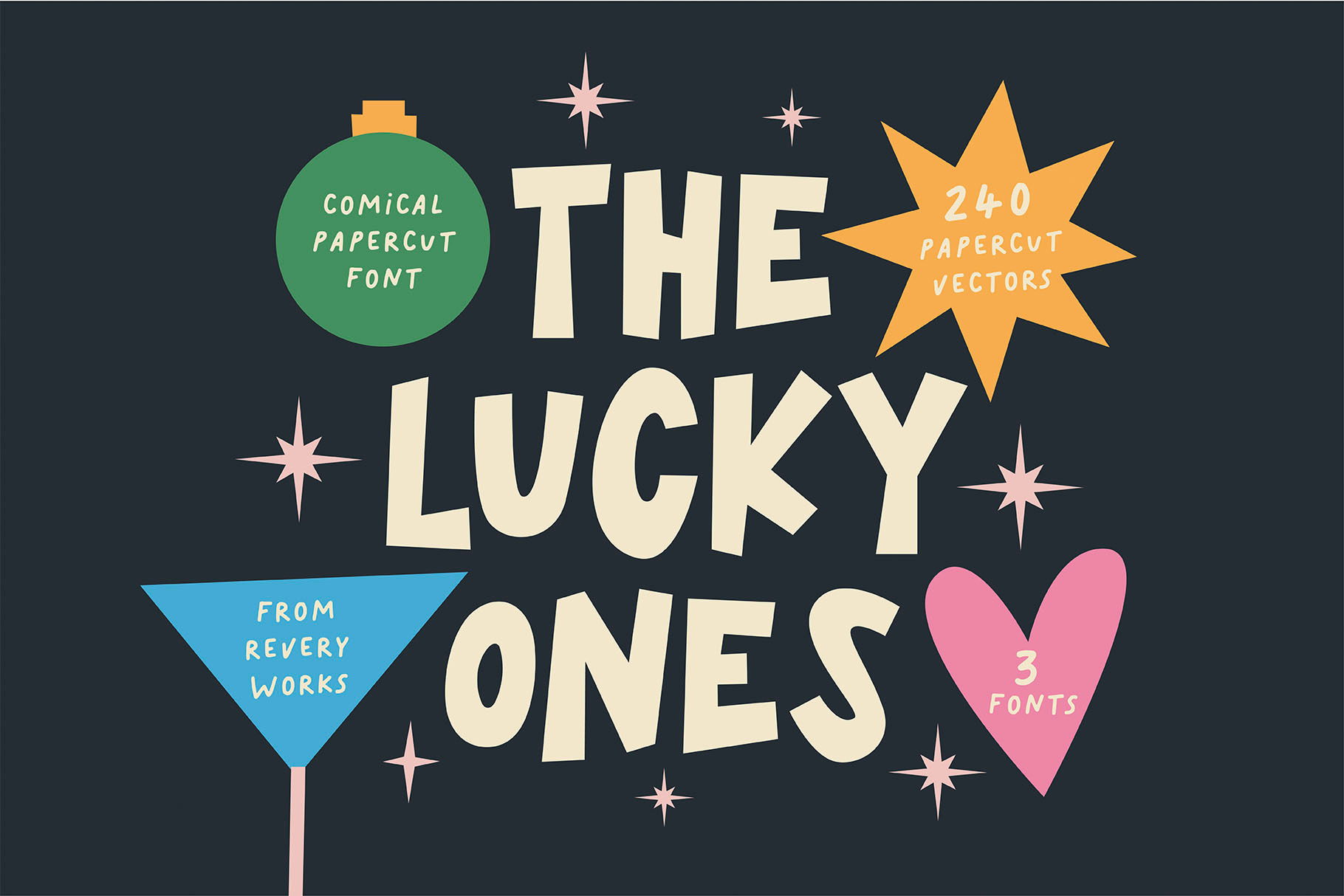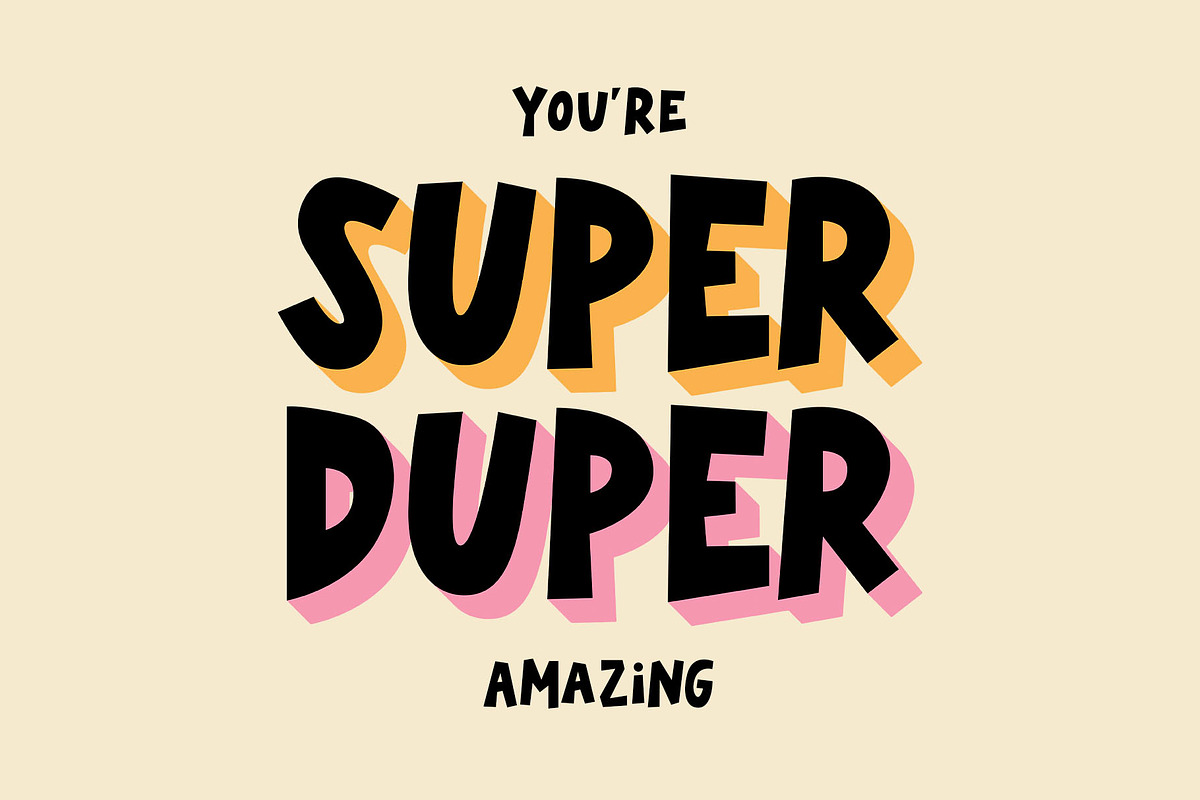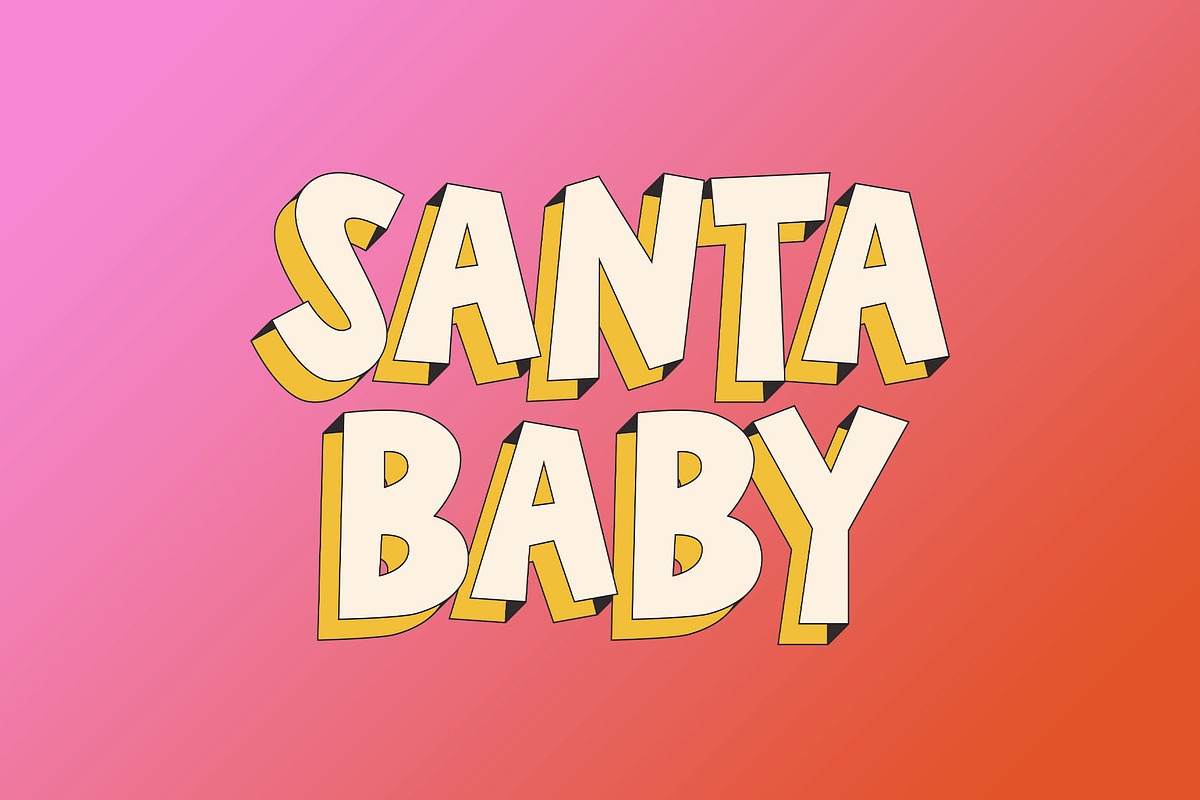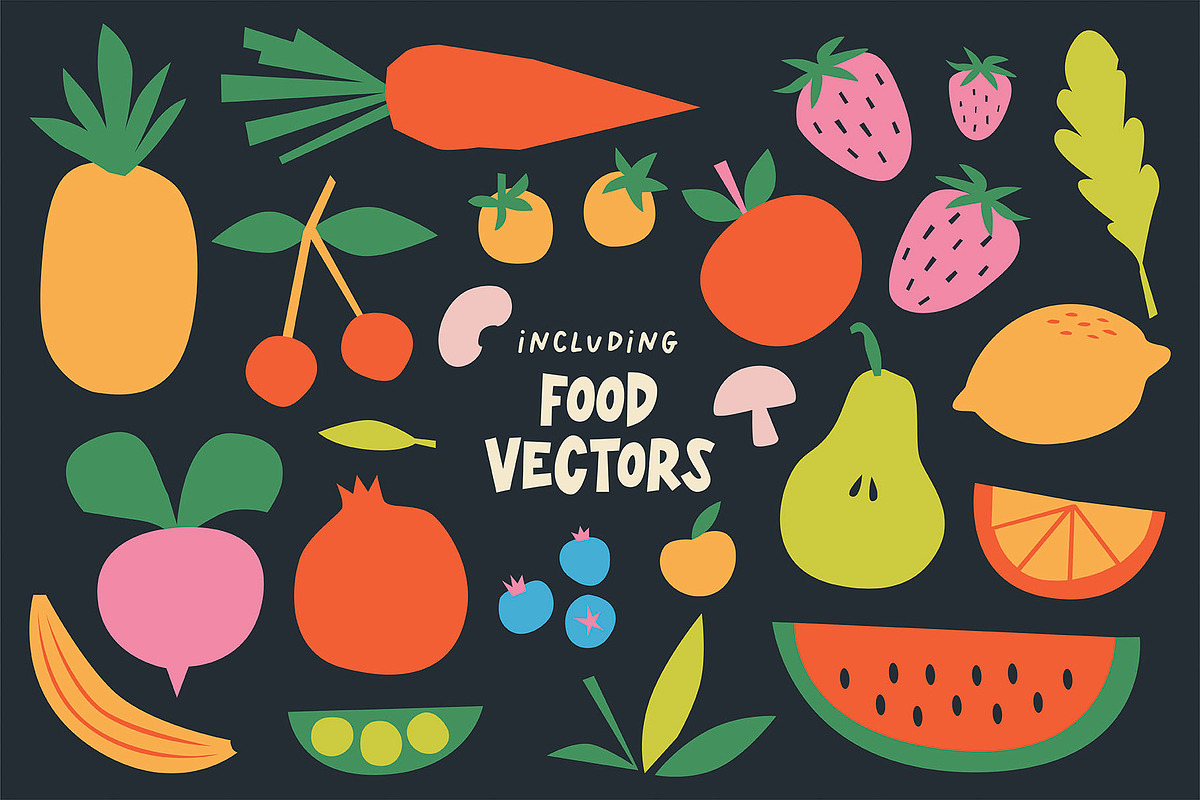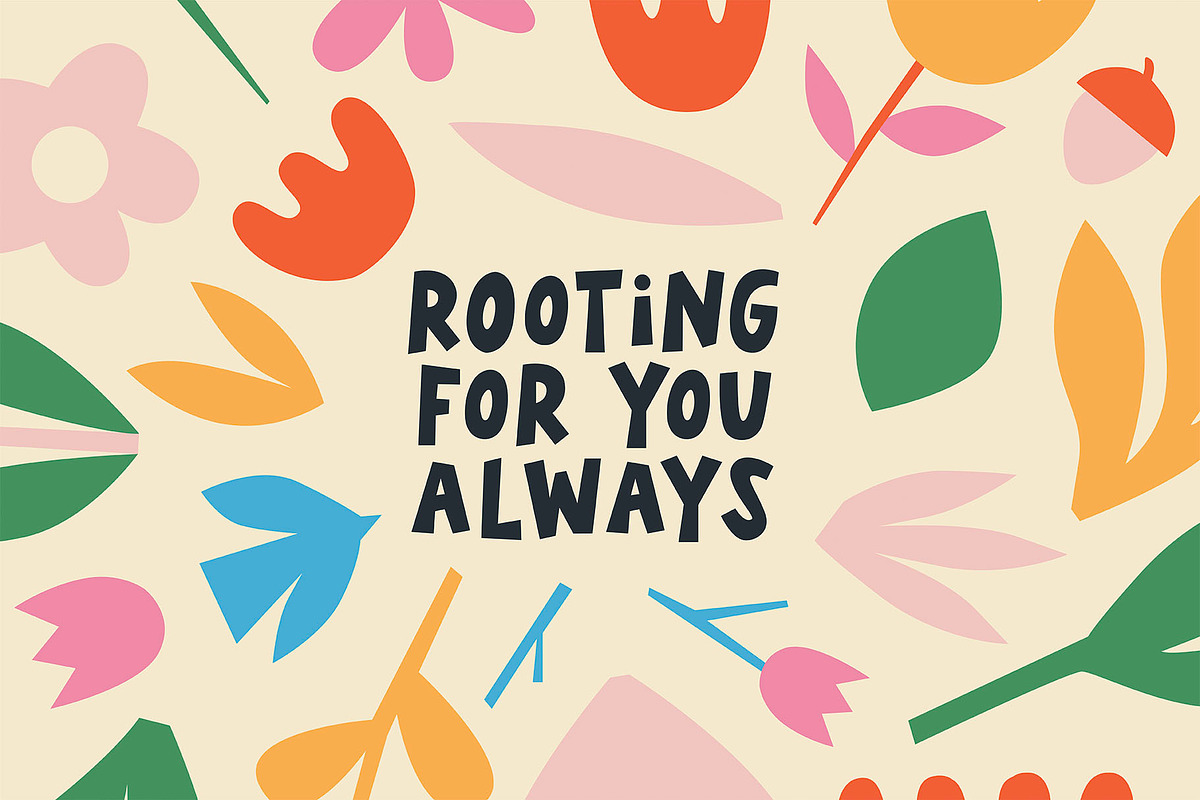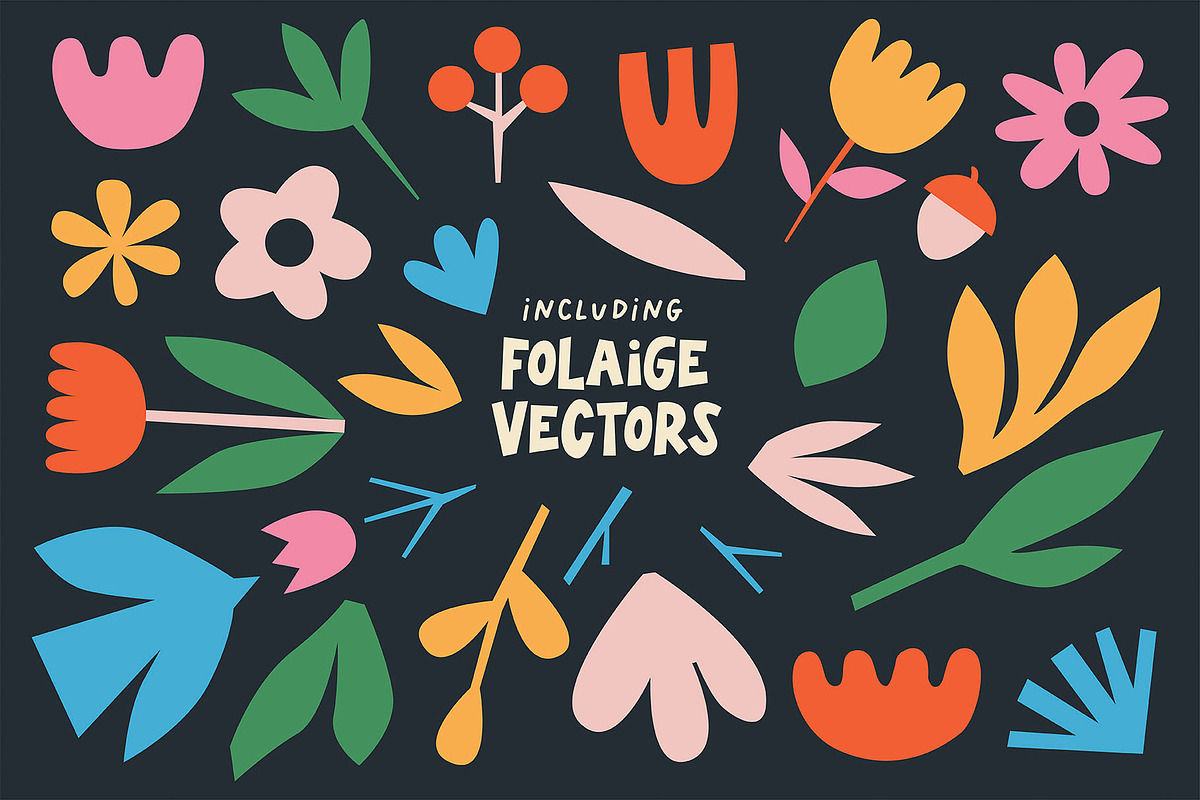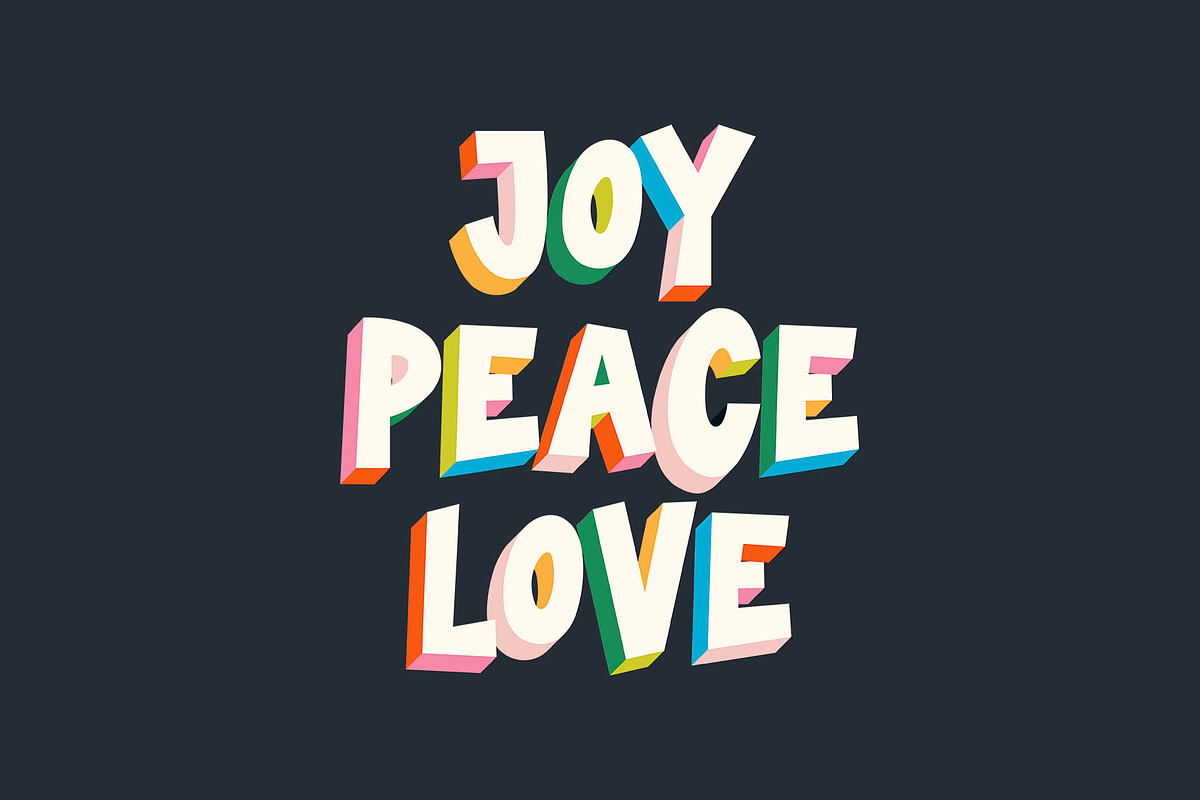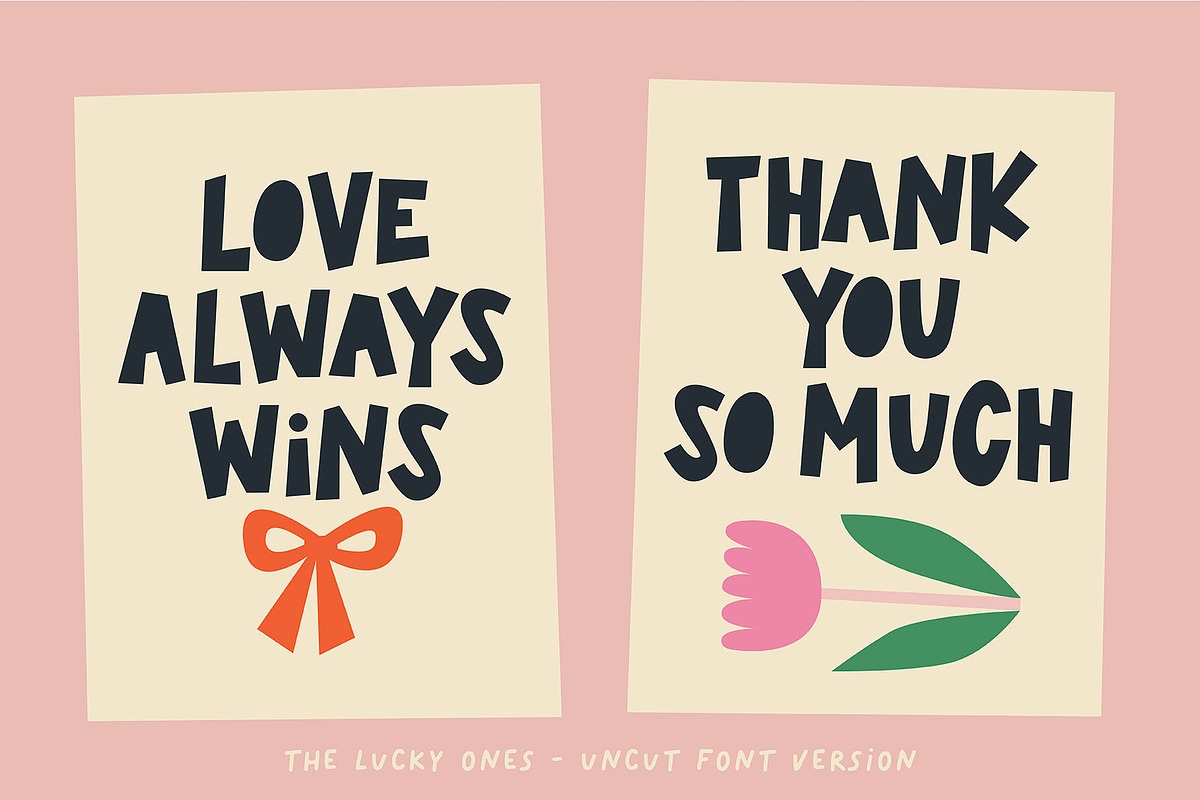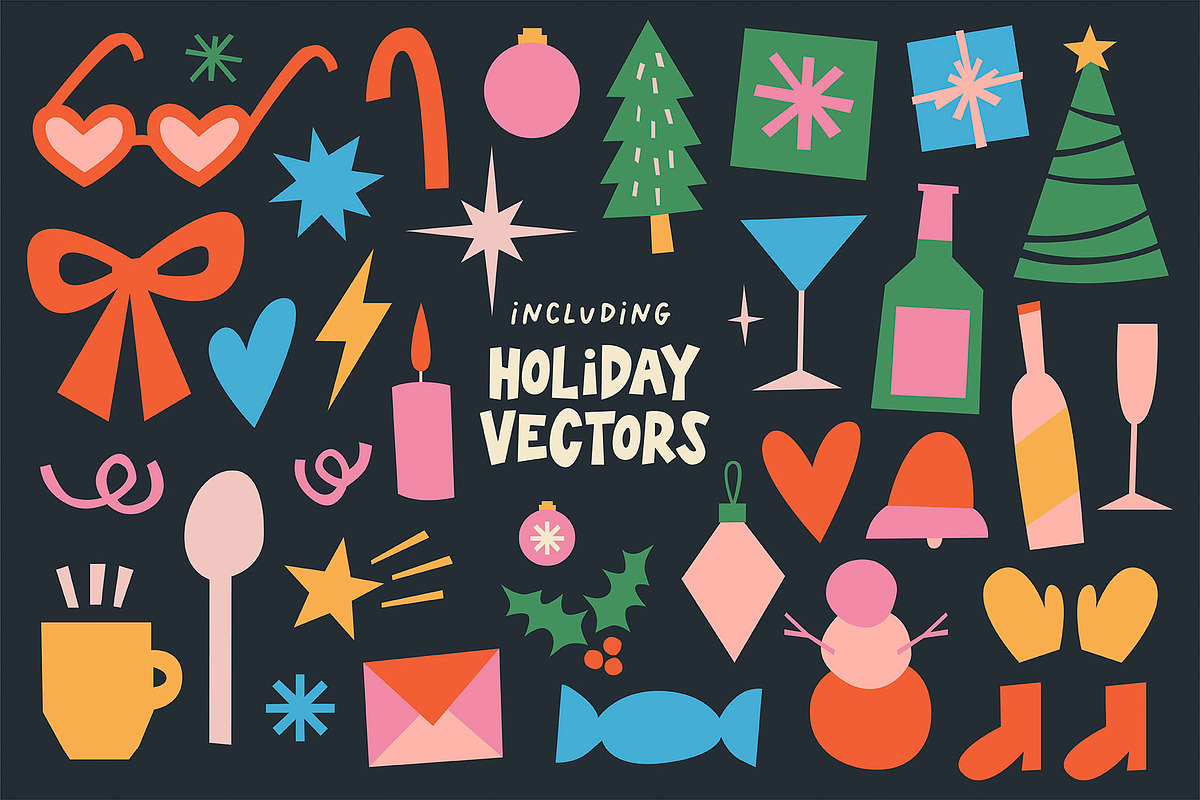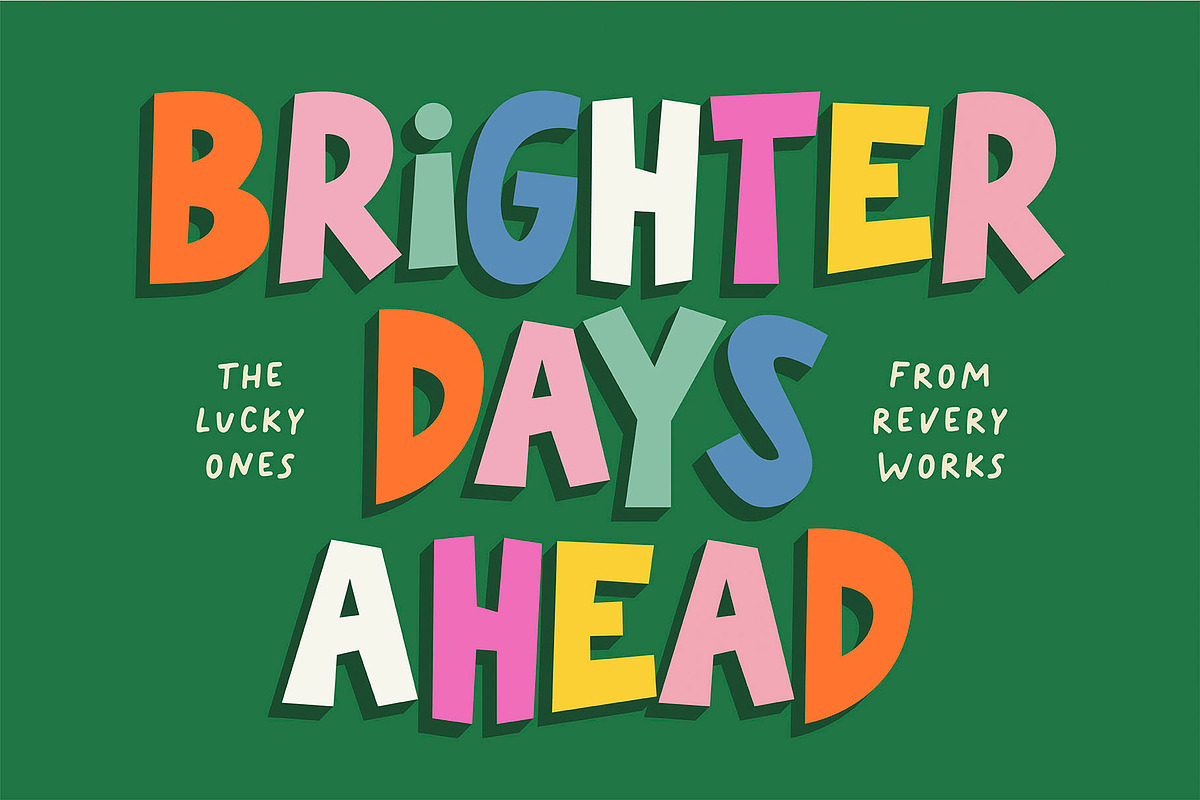
The Lucky Ones paper cut fonts
Hi Friends! Introducing The Lucky Ones fonts and illustrations! This paper cut inspired font comes in 3 fun versions: cut, uncut and ransom notes style (Please take a look at the previews to understand what I'm referring to)
It's playful, comical and pairs so well with illustrations in your projects!